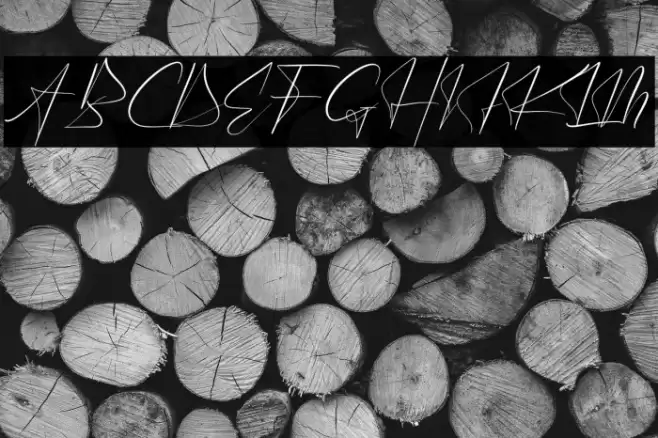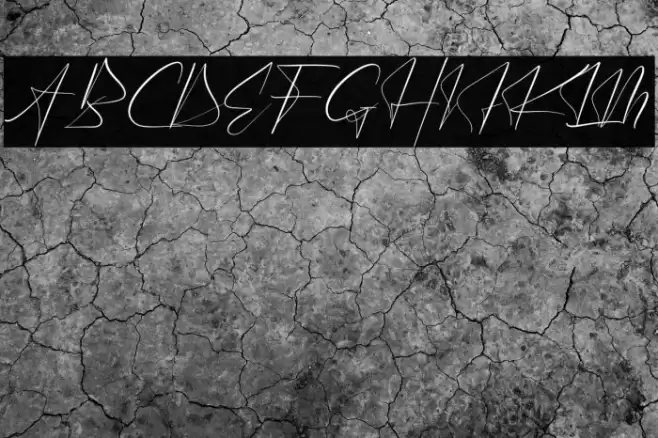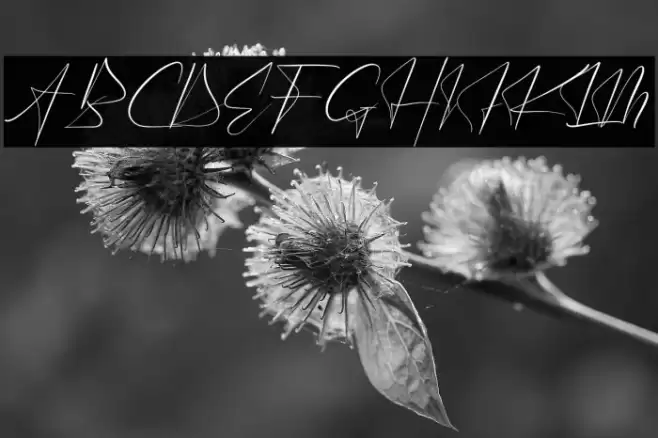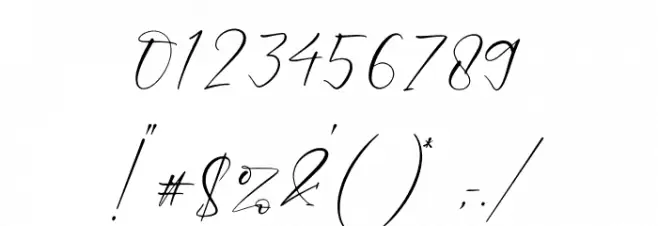
Victory Landera Font
Victory Landera Description
This font exhibits a unique, artistic flair with its elongated and sharp strokes, giving it a dynamic and energetic appearance. The uppercase letters are particularly striking, with exaggerated ascenders and descenders that create a sense of movement. The lowercase letters maintain a consistent style, complementing the uppercase with their own elegant curves and sharp angles. Numbers and special characters follow the same design principles, ensuring a cohesive look across all elements. The overall impression is one of sophistication and modernity, making it suitable for creative and expressive design projects.
A dynamic and artistic font with elongated, sharp strokes and a modern flair from Uncategorized fonts.
- Font: Victory Landera
- Proposed Projects: Ideal for branding, fashion magazines, artistic posters, and modern invitations.
- Character Spacing: Wide
- Use Case: Logos, Headlines, Artistic projects